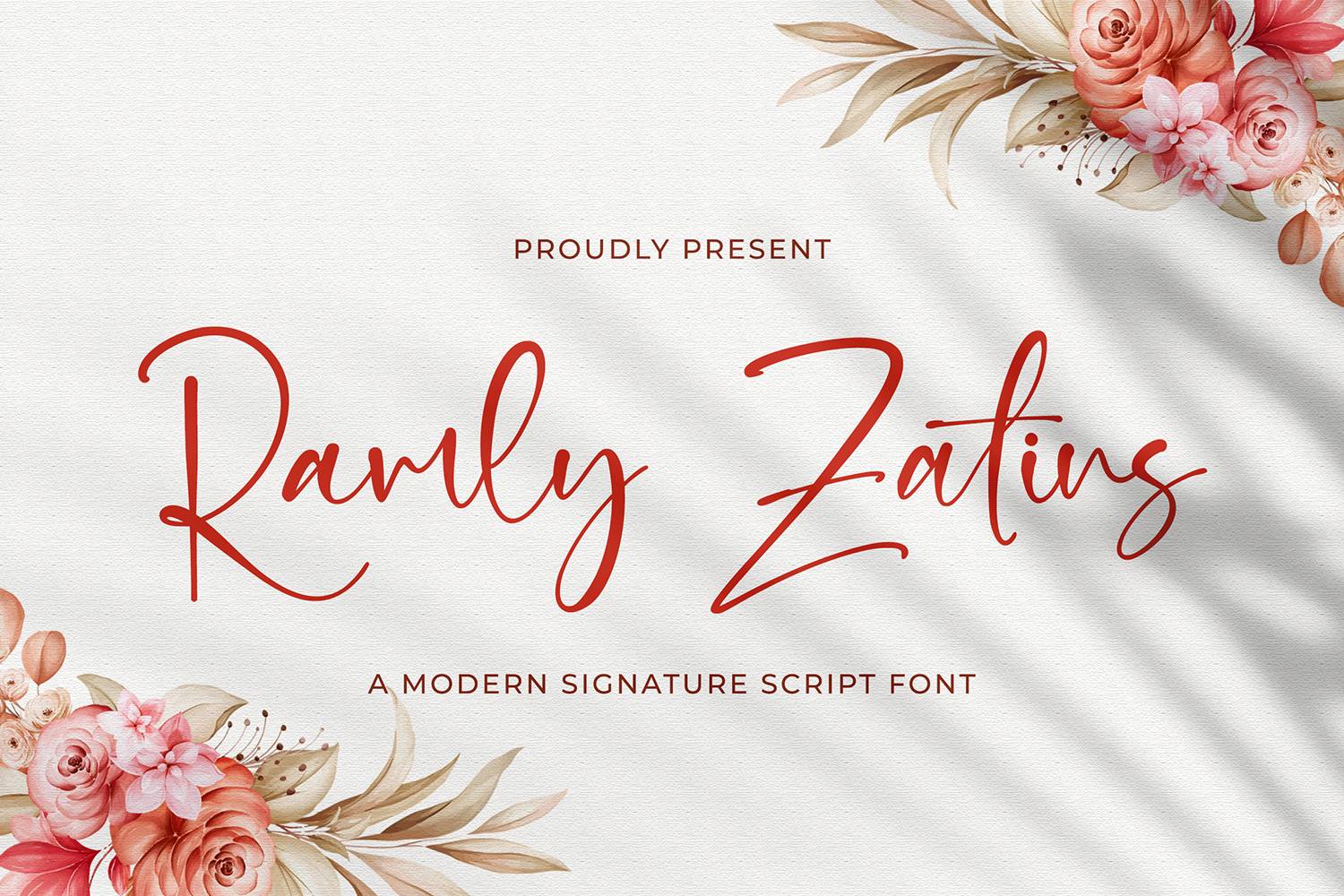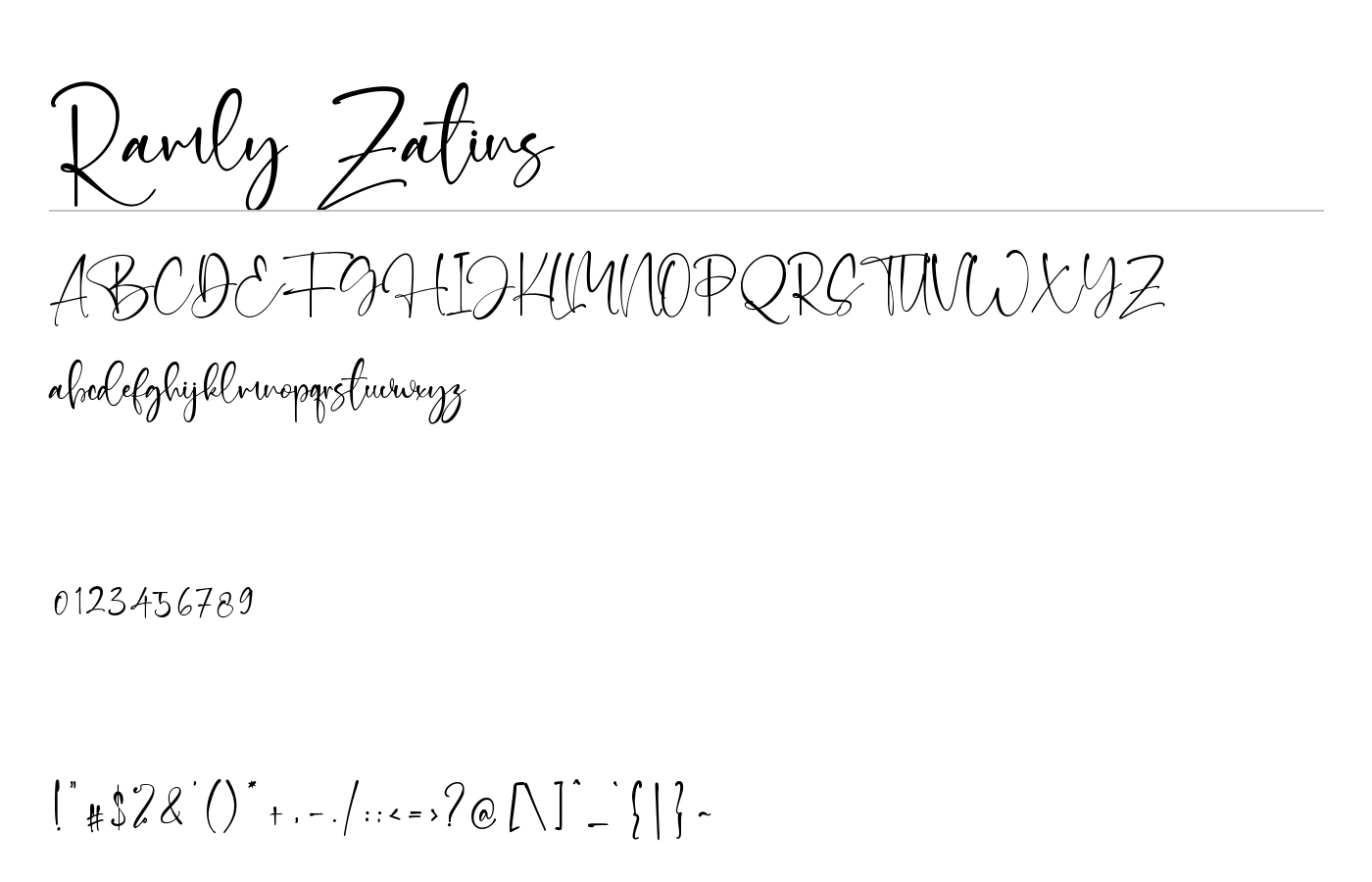
Ramly Zatins is a delicate, modern script font with a light weight and elegant, flowing strokes that give it a handwritten feel. Its tall, narrow letterforms, combined with thin, slightly textured lines, make it perfect for creating stylish and sophisticated designs, especially for branding, invitations, and social media. This font’s airy and graceful style lends a personal yet refined touch that works beautifully in creative and feminine contexts.
Ramly Zatins Font
About Ramly Zatins Font
| Font family | Ramly Zatins Font |